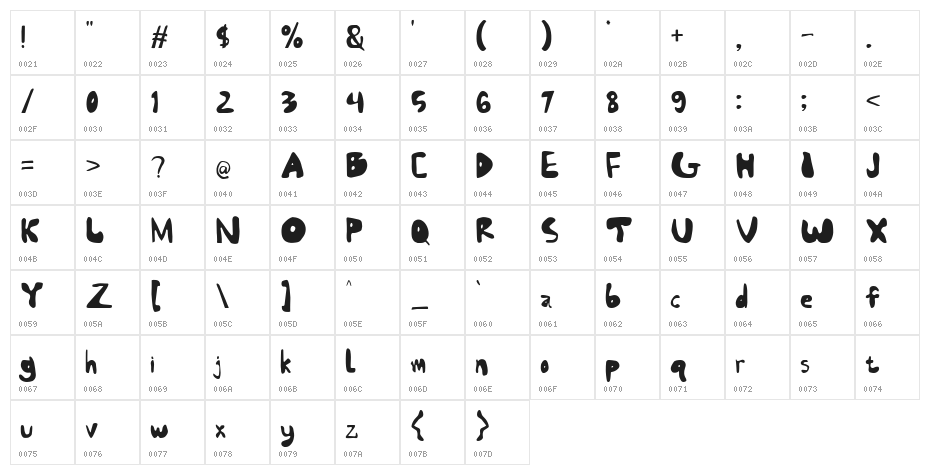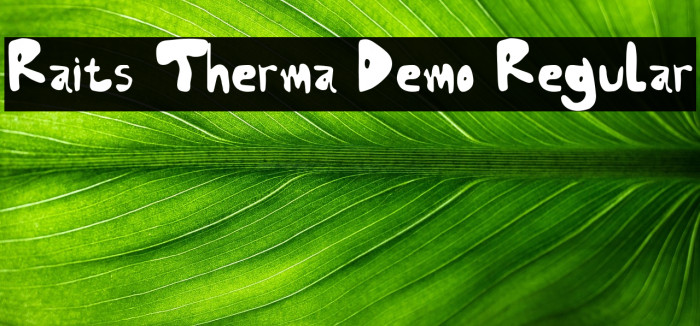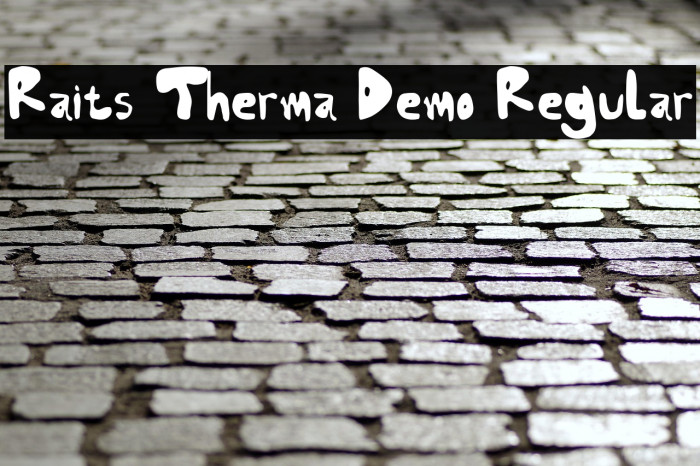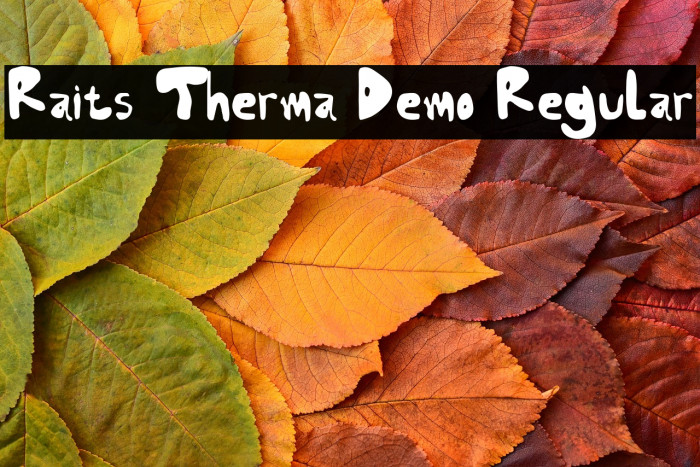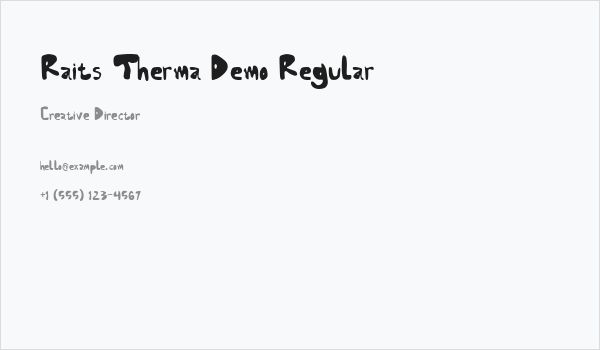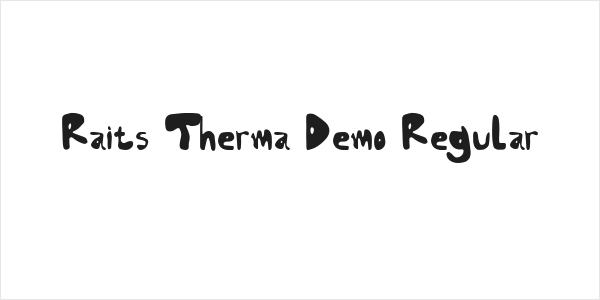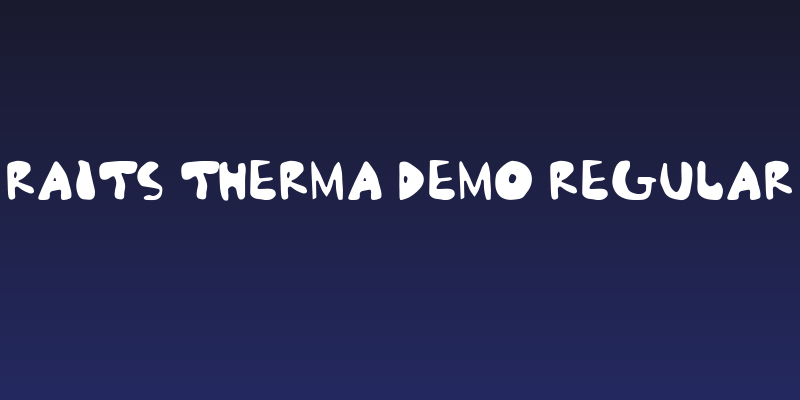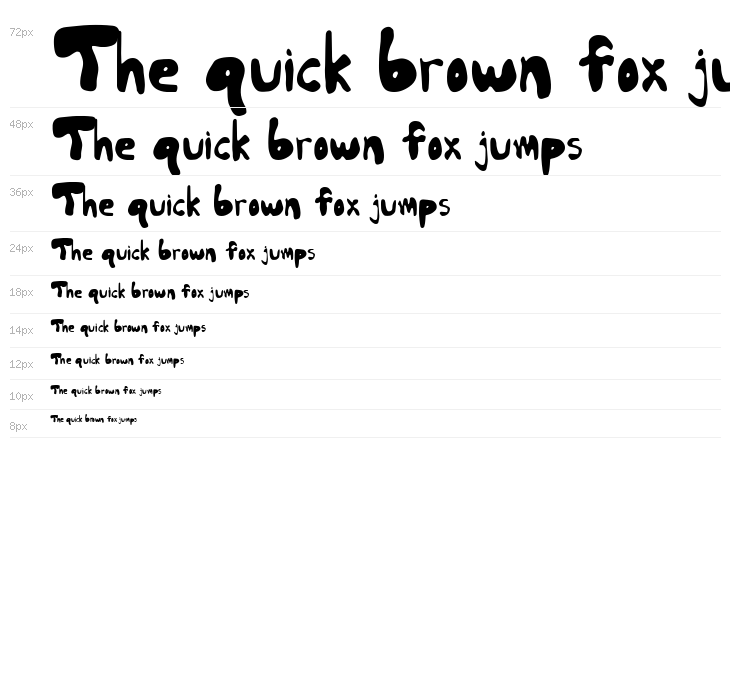
Raits Therma Demo Regular Font
Raits Therma Demo Regular Description
This font features a playful and bold style with a hand-drawn appearance. The characters are rounded and have an organic, fluid form, giving them a whimsical and informal feel. The uppercase and lowercase letters maintain a consistent style, with a slightly uneven baseline that adds to the casual aesthetic. The numbers and special characters follow the same playful design, making the font suitable for creative and fun projects. Its unique style makes it stand out, perfect for designs that require a touch of personality and creativity.
| Proposed Projects | Ideal for children's books, playful branding, greeting cards, and creative posters. |